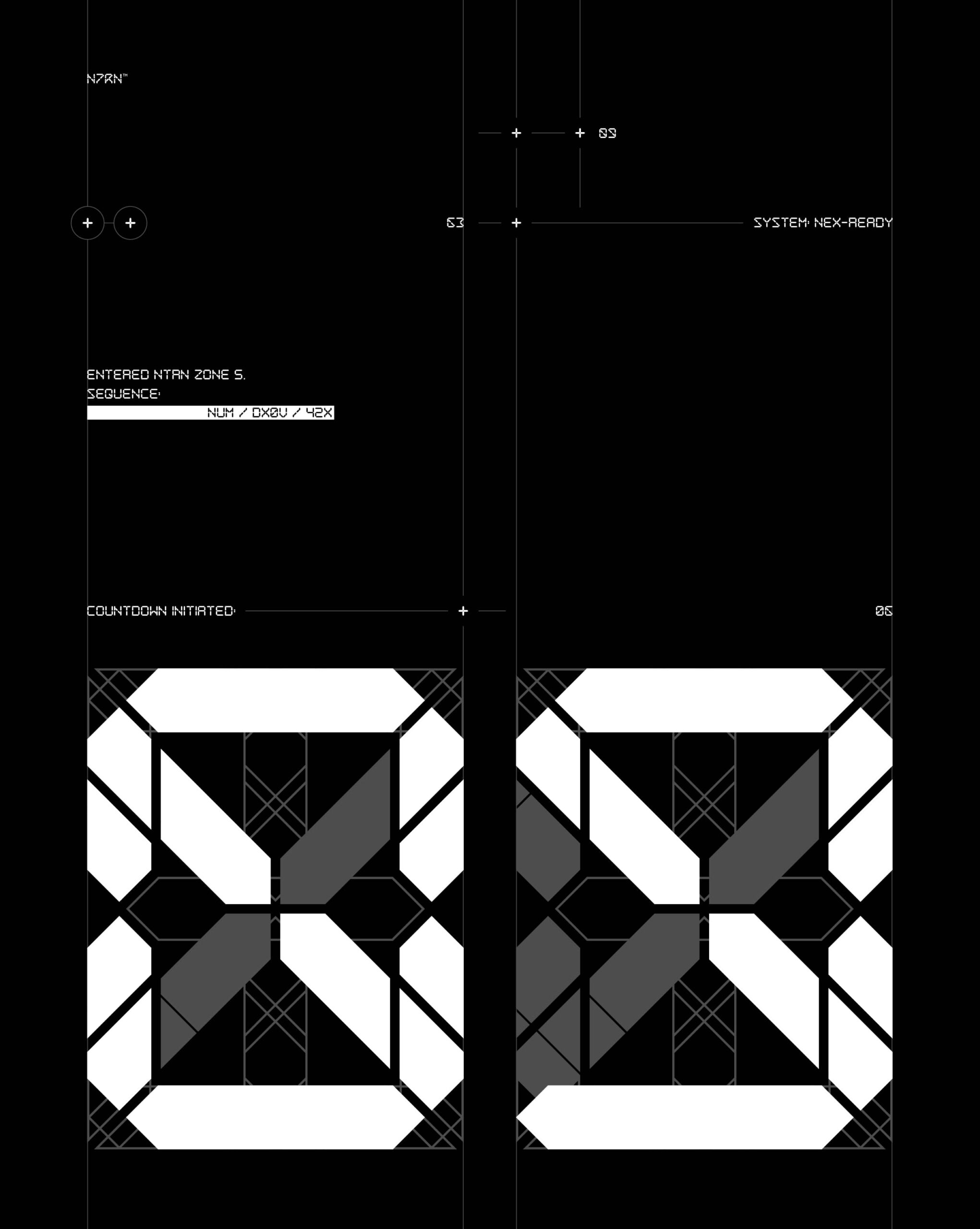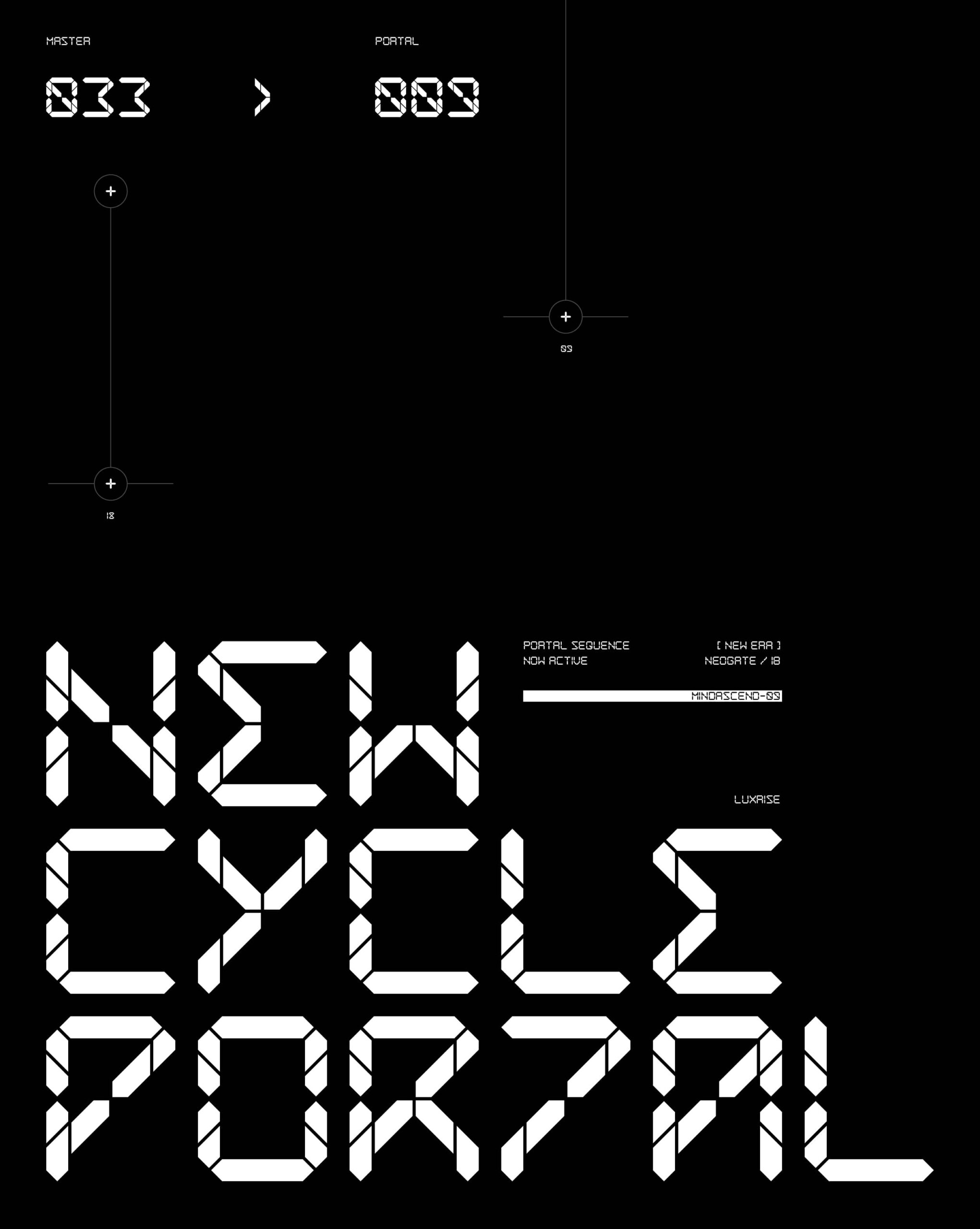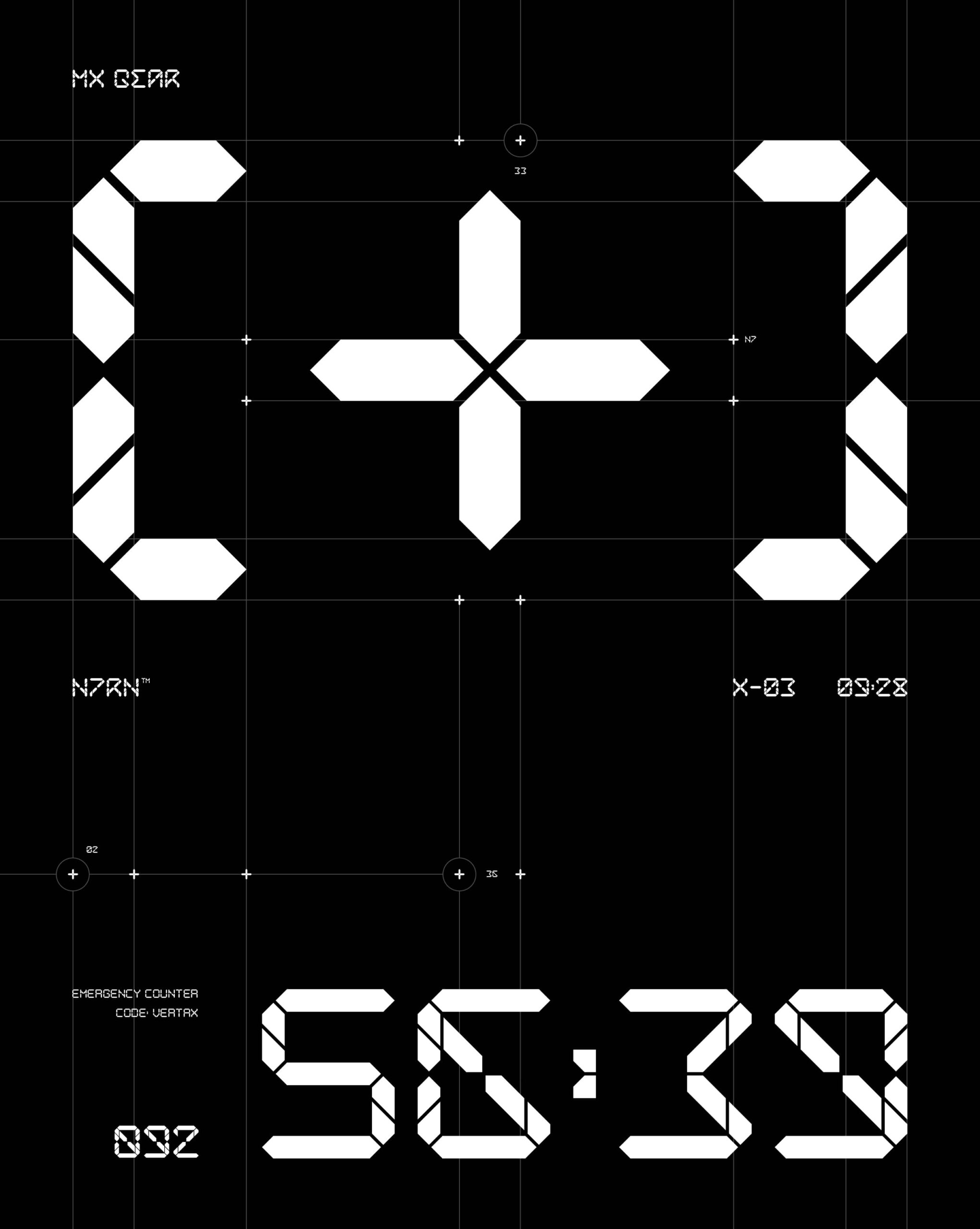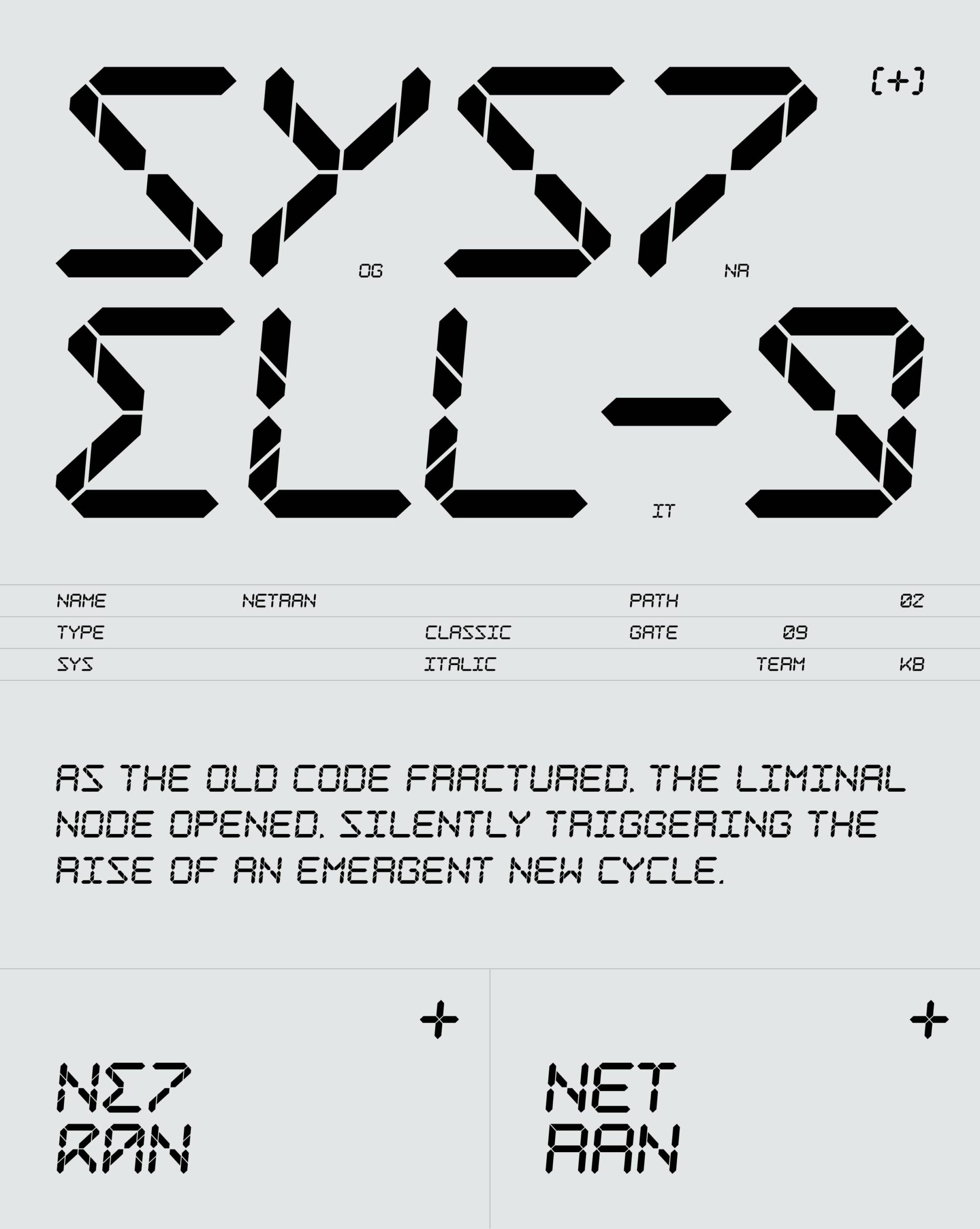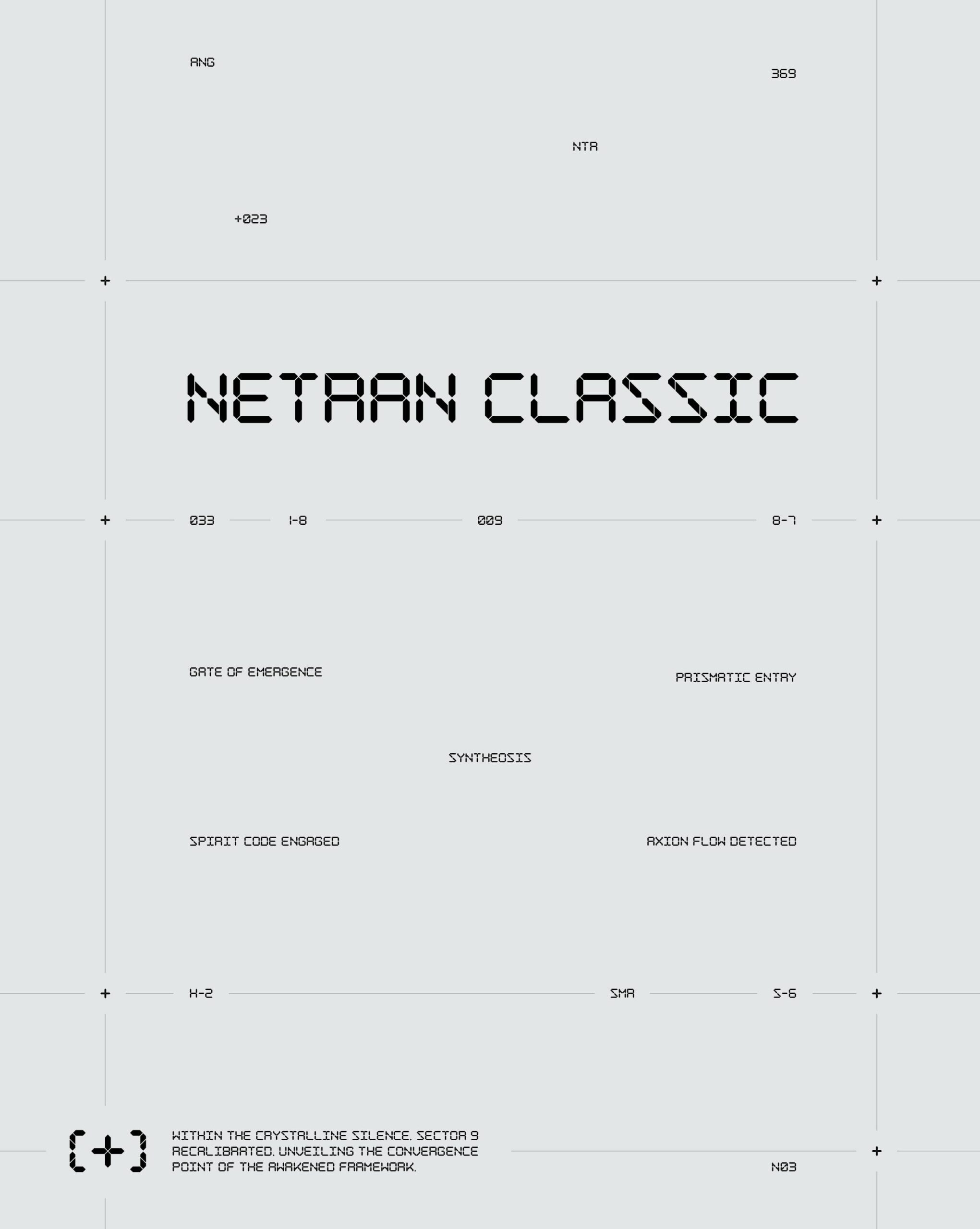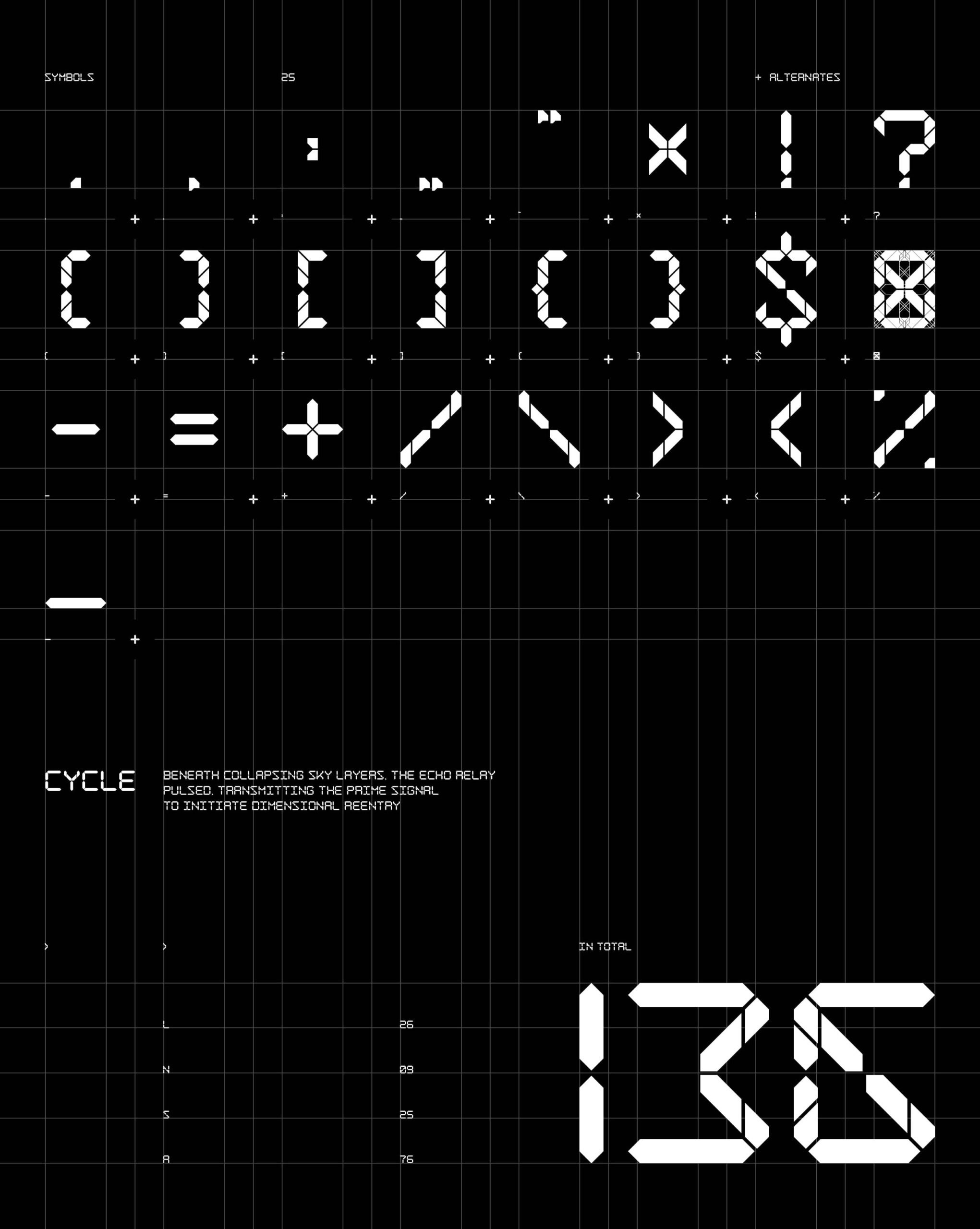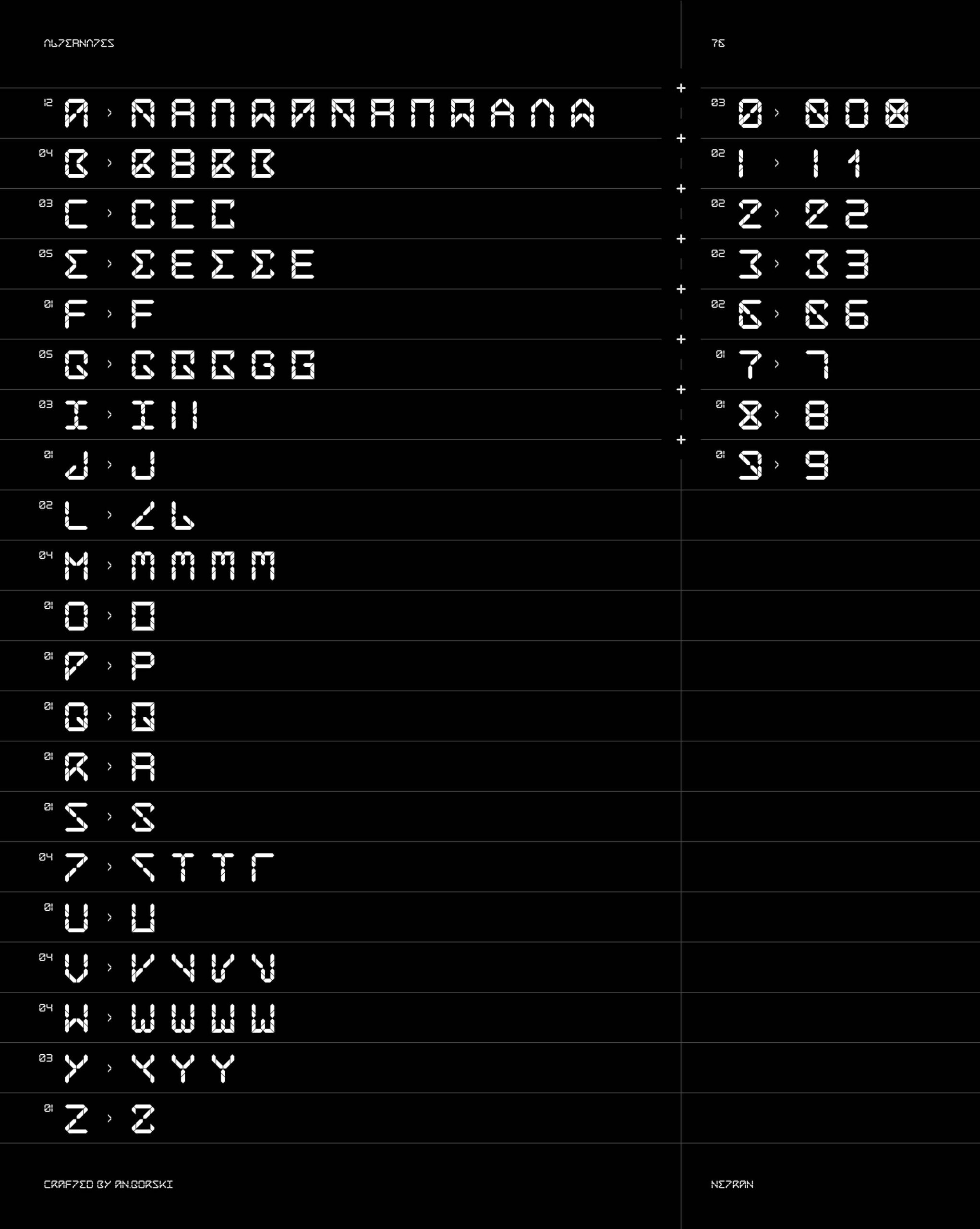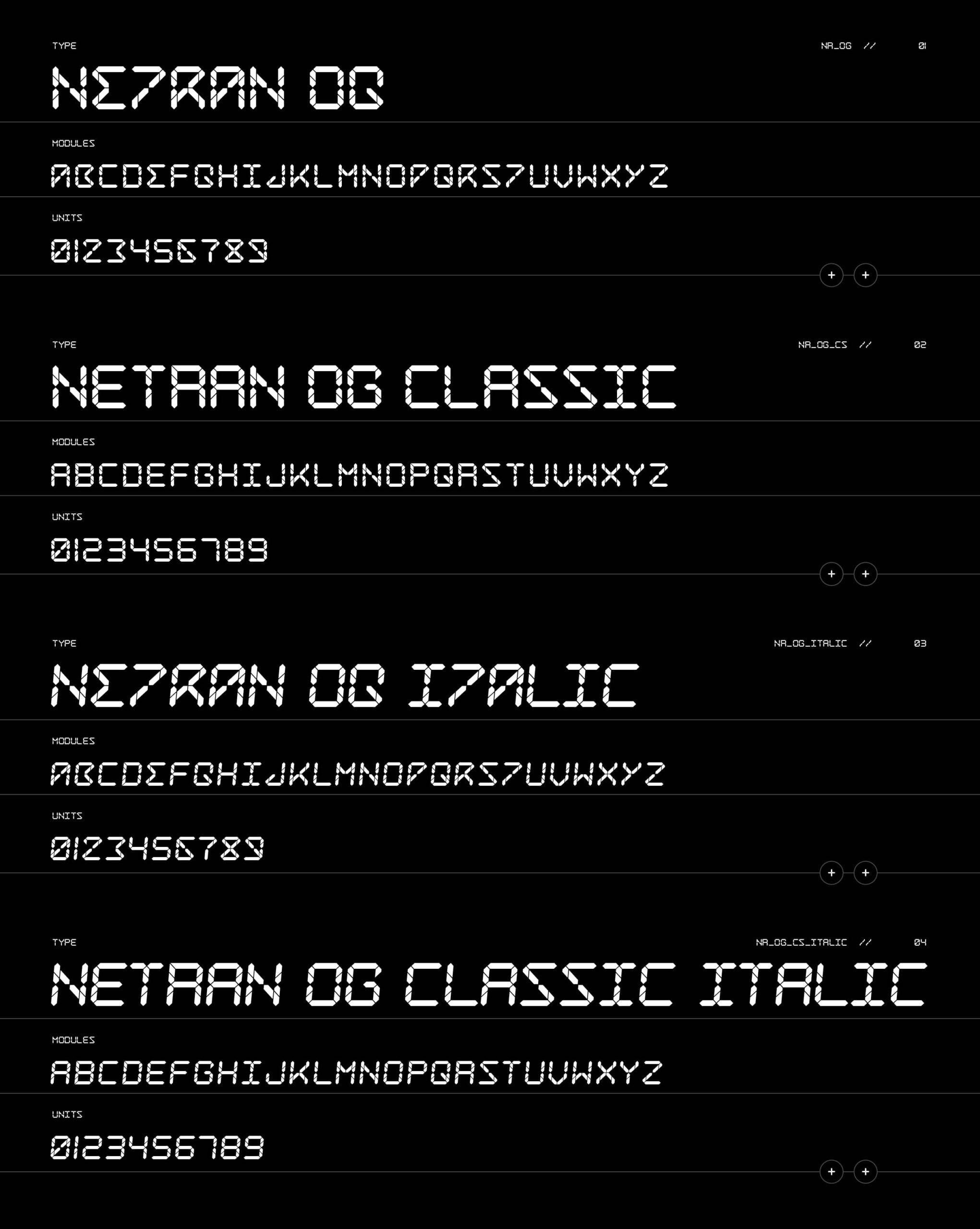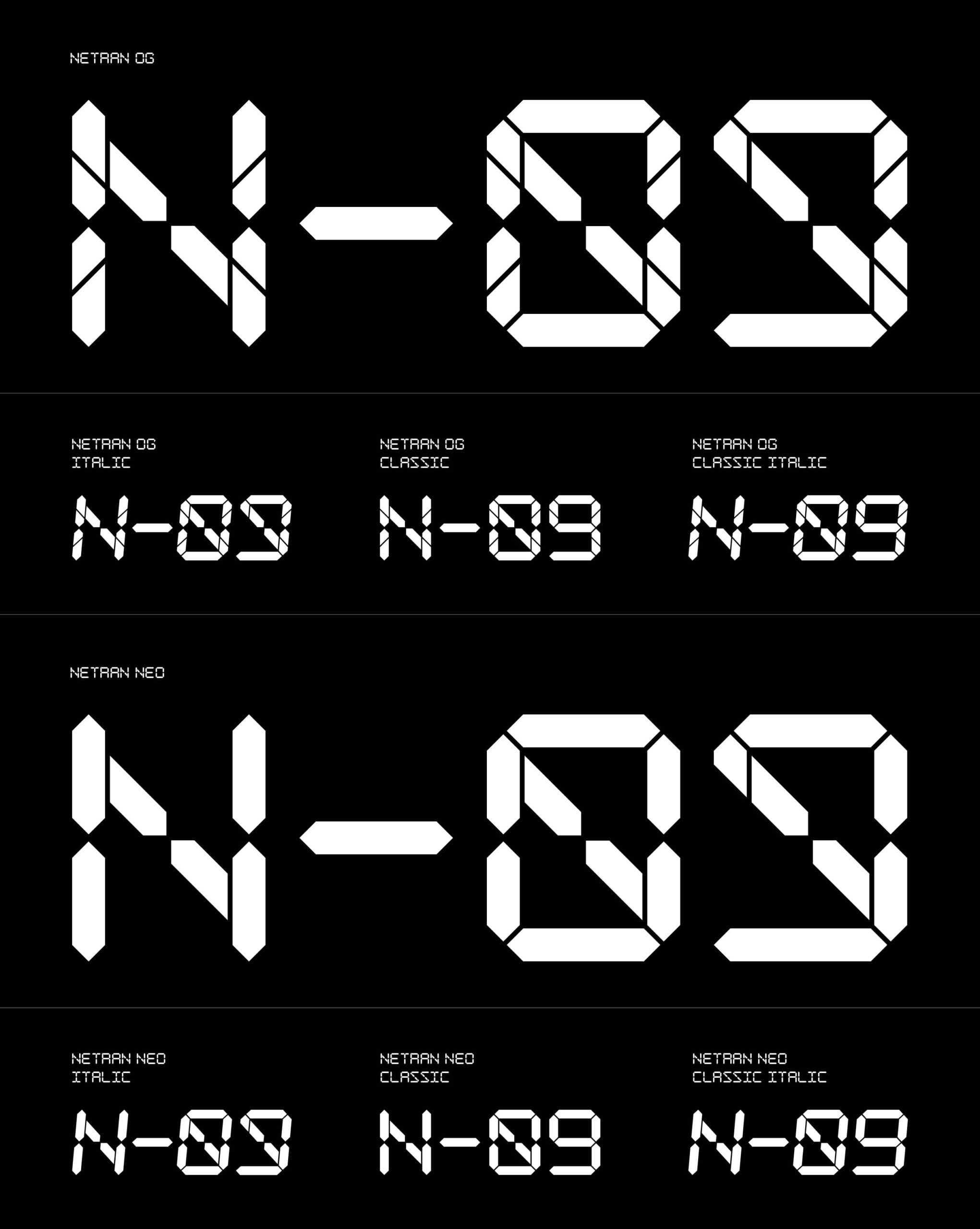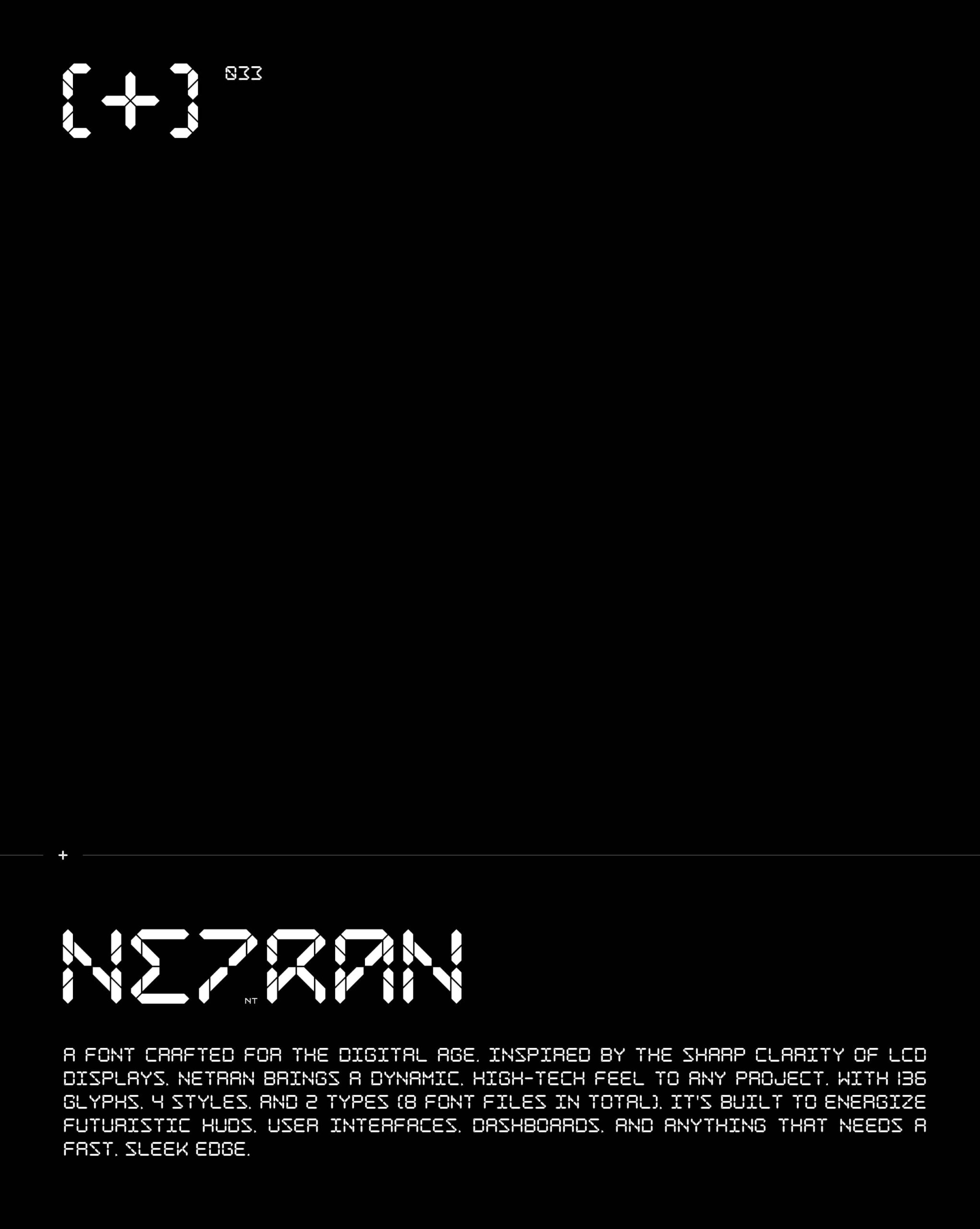
Netran — a font crafted for the digital age. Inspired by the sharp clarity of LCD displays, Netran brings a dynamic, high-tech feel to any project. With 136 glyphs, 4 styles, and 2 types (8 font files in total), it’s built to energise futuristic HUDs, user interfaces, dashboards, and anything that needs a fast, sleek edge. Formats: + .otf | .ttf + .woff | .woff2 (Extended Licence Only